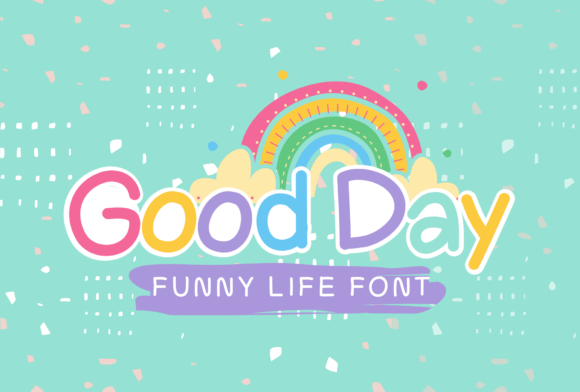
Bringing Sunshine to Your Designs
Who doesn’t love a good morning, full of fresh ideas and endless possibilities? For designers, that perfect creative moment often starts with a spark of inspiration – and a dash of the right font can be just the thing to get those creative juices flowing.
Enter the Good Day Font, a delightful display font that embodies the warmth and playfulness of a sunny day. With its friendly, cute style, this font is the perfect match for a wide range of creations that call for a sweet, natural touch. Whether you’re designing for kids or just want to add a dash of whimsy to your next project, the Good Day Font is sure to bring a smile to your face and a spring to your step.
Key Features of Good Day Font
- Unique Characteristics: The Good Day Font features a clean, modern sans-serif design with a friendly and approachable feel, making it perfect for use in editorial, advertising, and publishing contexts.
- Kerning and Ligatures: The font includes advanced kerning and ligature features, ensuring that characters are spaced correctly and look their best in text.
Good Day Font Review
As a designer, I was excited to dive into the world of Good Day Font, a sans-serif typeface designed for digital use. ✨ Here are some of the things I appreciated about it.
- Good Day Font is incredibly legible, even at small font sizes. Its clean lines and rounded edges make it perfect for body text.
- The font has a friendly, approachable feel to it, which makes it suitable for use in modern websites, apps, and digital interfaces.
- The font family includes a wide range of weights and styles, making it easy to find the perfect combination for your design project.
- Good Day Font supports a wide range of languages, making it a great choice for global brands and websites.
However, there are a few limitations to consider ⚠️:
- The font may not be as distinctive or attention-grabbing as some other sans-serif typefaces.
- The font’s rounded edges may not be suitable for use in designs that require a more aggressive or edgy feel.
Overall, Good Day Font is a solid, reliable choice for digital designers. While it may not be the most exciting or unique typeface, it gets the job done and is easy to work with. If you’re looking for a clean, friendly font for your next project, Good Day Font is definitely worth considering.
Tip: Use Good Day Font for headings and titles to add a touch of elegance to your design.
Tip: Use Good Day Font for typography-heavy designs, such as posters and brochures.
Tip: Use Good Day Font for titles and headings to add a touch of sophistication to your presentation or document.
Good Day Font is ideal for:
- Business cards and brochures
- Posters and flyers
- Presentations and documents
Remember to use Good Day Font consistently throughout your design to create a cohesive and professional look.